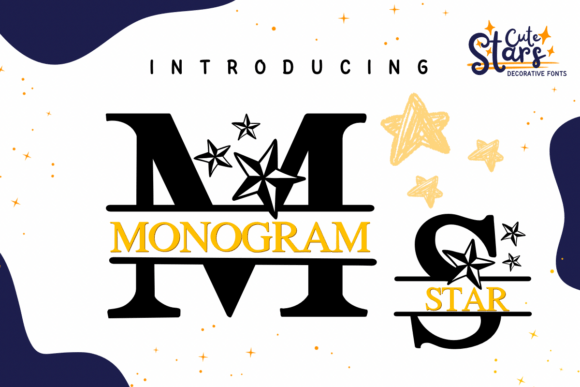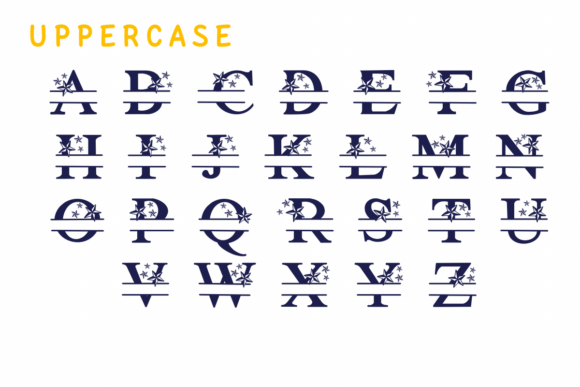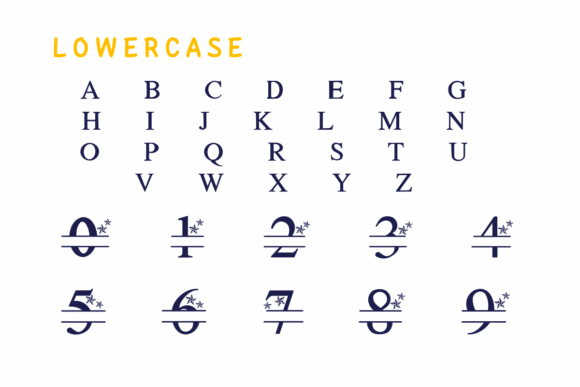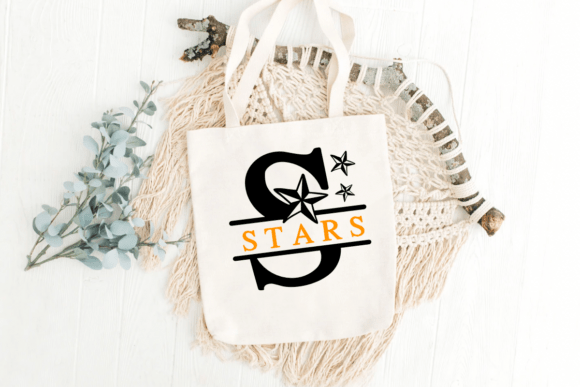
Monogram Star Font
About the Monogram Star Font
Let us introduce you to Monogram Star Font, where timeless design meets modern craftsmanship. A stylish decorative font that pairs classic serif monograms with playful star accents. Perfect for elegant branding, event materials, or standout initials.
Monogram Star Font shines in applications requiring a touch of vintage charm with a modern twist. Ideal for logos, short headlines, wedding invitations, and boutique branding, it adds a distinct personality without overwhelming the design. Avoid using it for large blocks of text or UI elements; its decorative nature makes it less legible for extended reading.
This font’s playful yet elegant personality pairs well with clean sans-serif fonts like Lato or Open Sans for a balanced contrast. For a more luxurious feel, consider pairing it with a classic serif like Garamond or Didot. Avoid pairing it with other highly decorative fonts to prevent visual clutter.
Its overall mood is sophisticated but approachable, making it suitable for brands aiming for a balance of classic elegance and youthful energy.
Monogram Star Font Usage Examples
Monogram Star Font Example